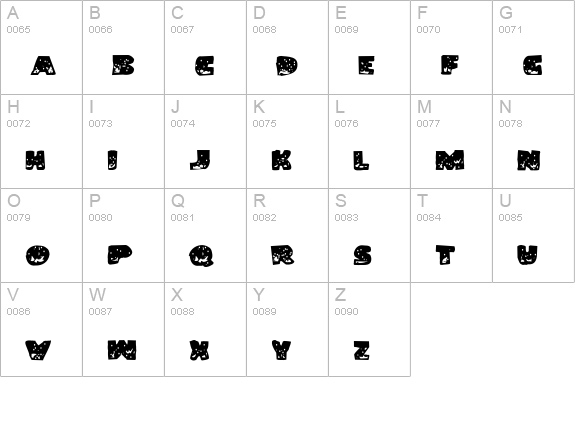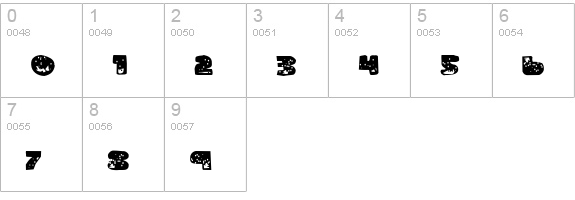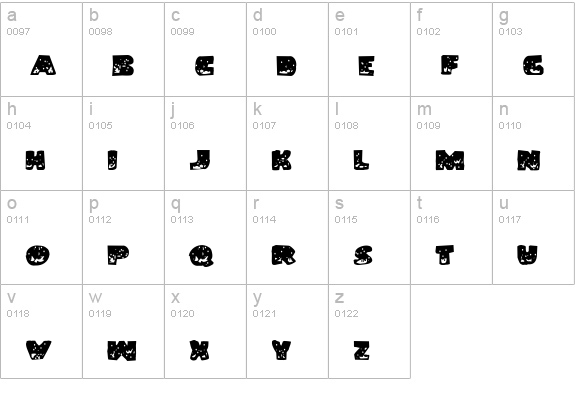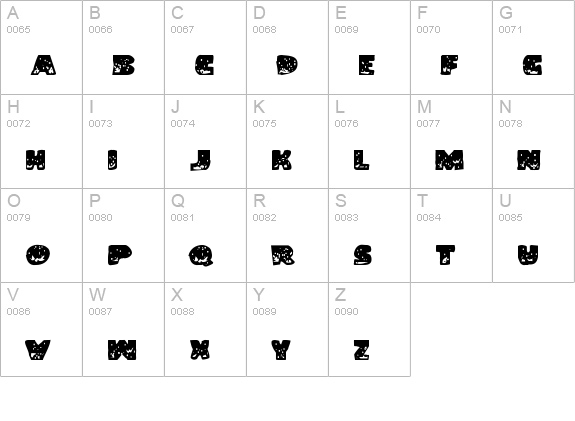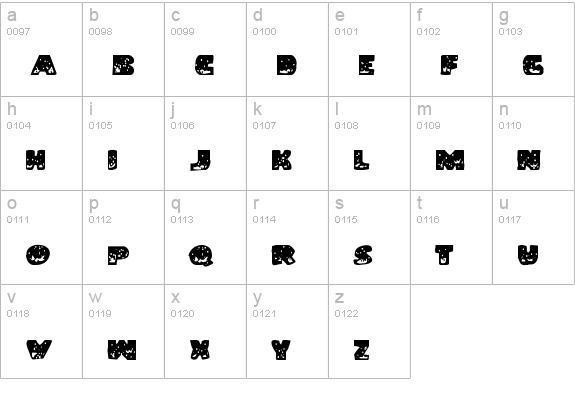
Introducing Land Shark Grunge Font, a captivating and edgy typeface that brings a raw and rebellious energy to your designs. With its bold and rugged appearance, this font is perfect for adding a touch of grunge and urban flair to any project. Land Shark Grunge Font is a true embodiment of the underground spirit, evoking a sense of urban decay and street art. Its distressed and weathered texture gives your text an authentic and worn-out look, making it ideal for album covers, posters, apparel designs, and more. This font's unique and jagged letterforms are inspired by the untamed nature of a land shark, capturing the essence of power and danger. Each character is meticulously crafted, giving your words a distinct and eye-catching presence. What makes Land Shark Grunge Font even more appealing is that it is available for free! Yes, you read that right. This remarkable font can be freely downloaded at FontsMarket.com, allowing you to unleash the true potential of your creative projects without breaking the bank. Whether you're a graphic designer looking to add a touch of grunge to your portfolio or a DIY enthusiast seeking an edgy font for your personal projects, Land Shark Grunge Font is the perfect choice. Its versatility and free availability make it a must-have for anyone seeking to make a bold statement with their typography. Download Land Shark Grunge Font now and dive into the world of urban decay, where creativity knows no limits. Unleash your inner rebel and let this font take your designs to new depths of visual impact. Get your hands on this free font at FontsMarket.com and let your imagination run wild.